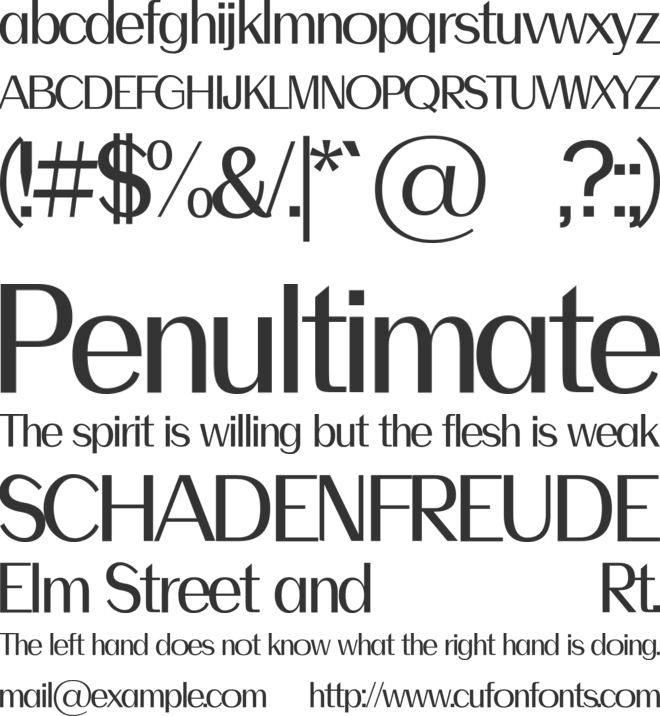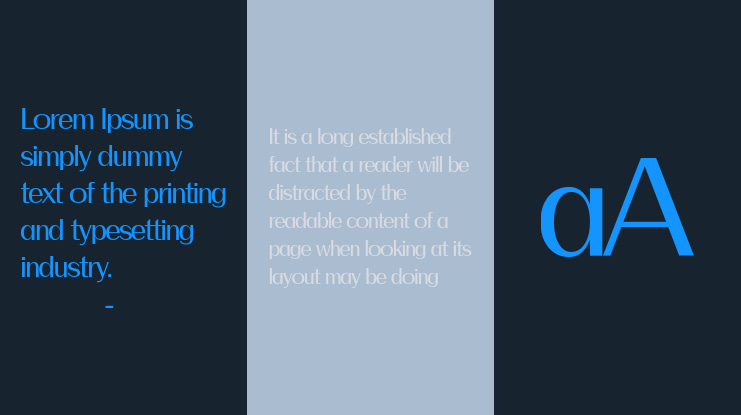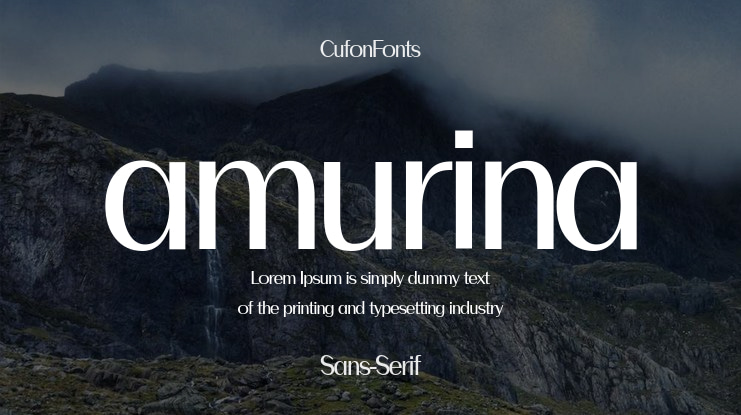
amurina Font Family
Amurina is a clean sans serif with delicate elegance and multilingual support—perfect for beauty branding, minimalist layouts, and poetic design.